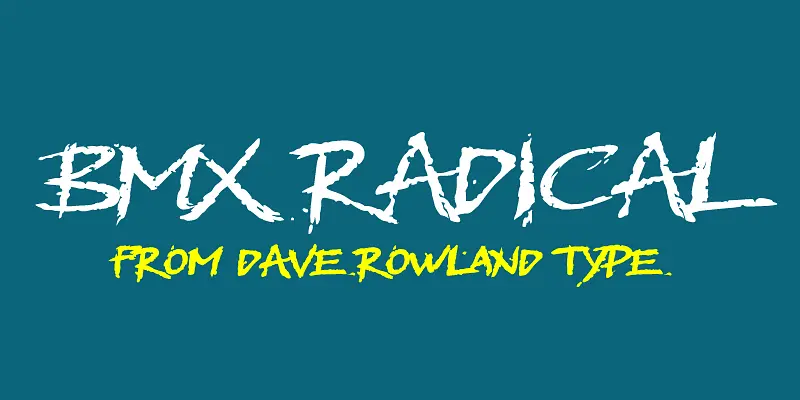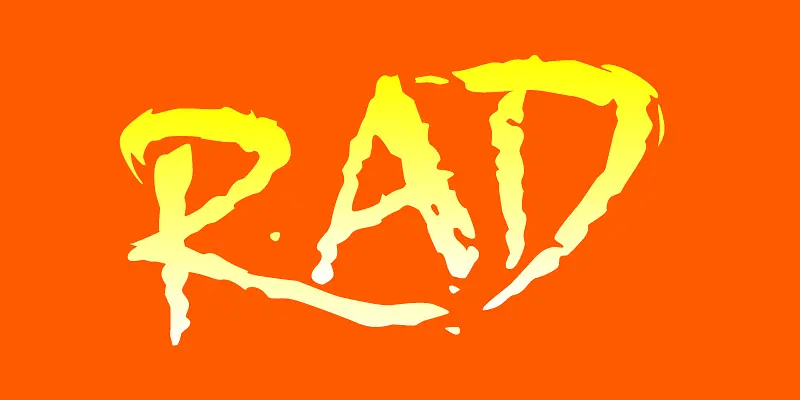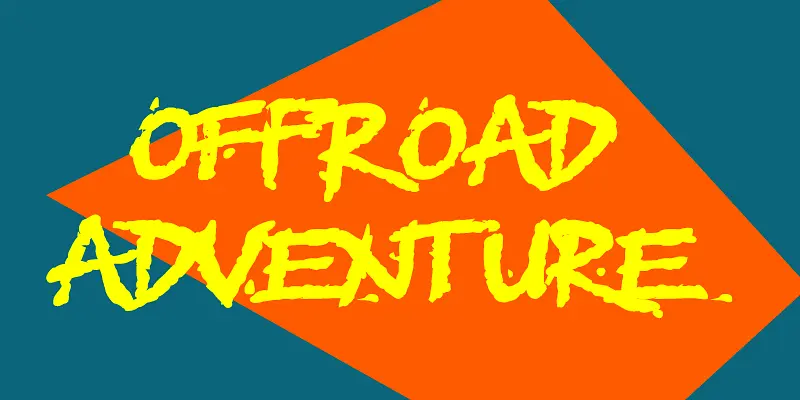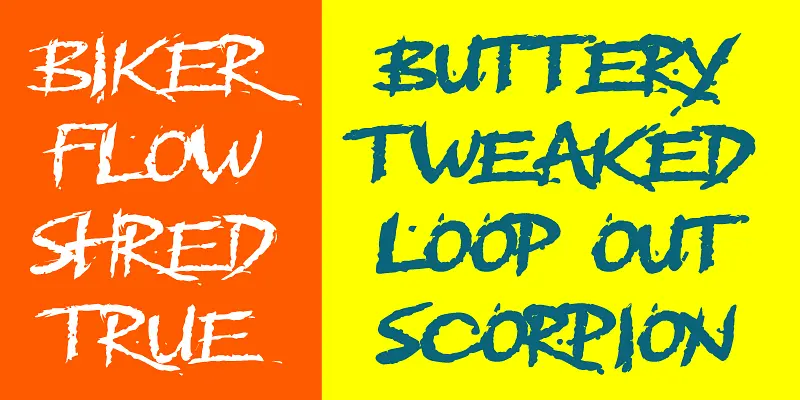
BMX Radical Font Family
BMX Radical Regular
BMX Radical Bold
BMX Radical
BMX Radical is a versatile brush script typeface inspired by the titles of the cult 1980s BMX movie “Rad.” The characters R, A, and D were designed after this, with the rest of the character set being wholly made up. The font is uppercase only with two different alphabets, so the text can maintain a more handmade feel. Go 80s in cheesy and retro bright colors or 90s grunge with gritty, modern, muted palettes. BMX Radical can deliver gnarly posters, wicked branding, and bodacious adverts!